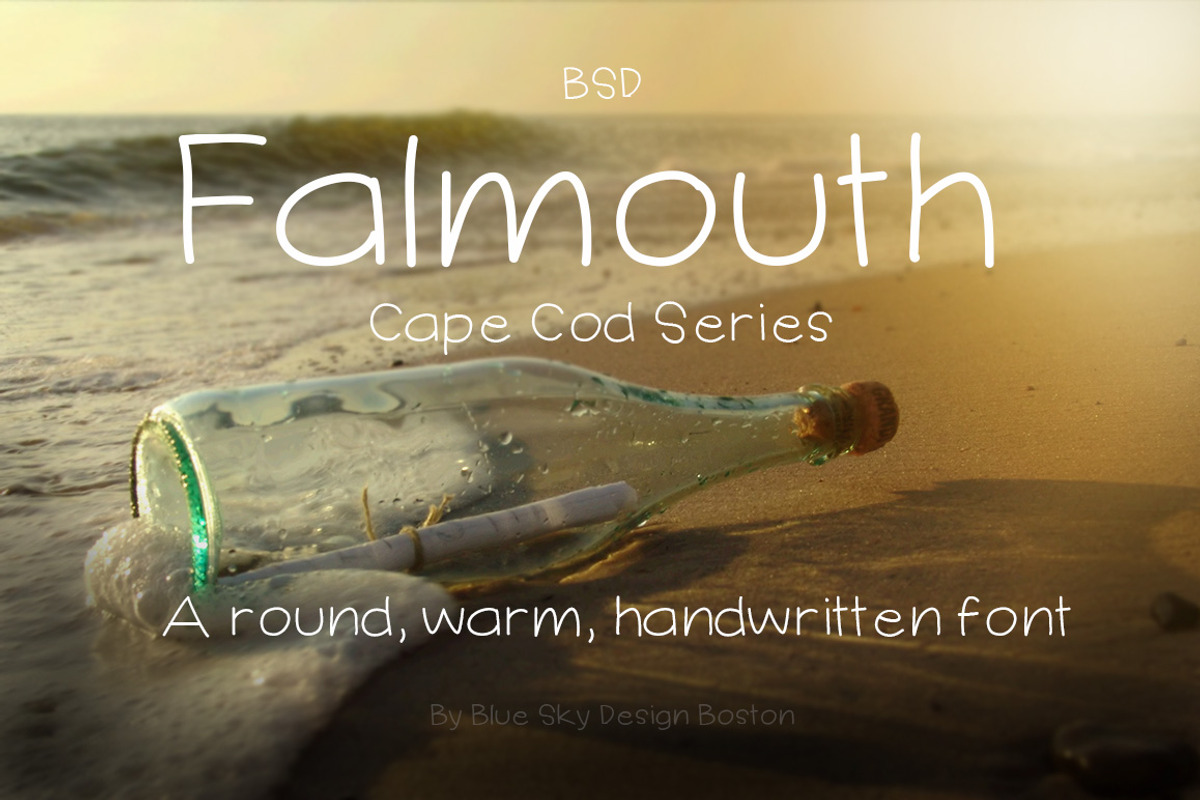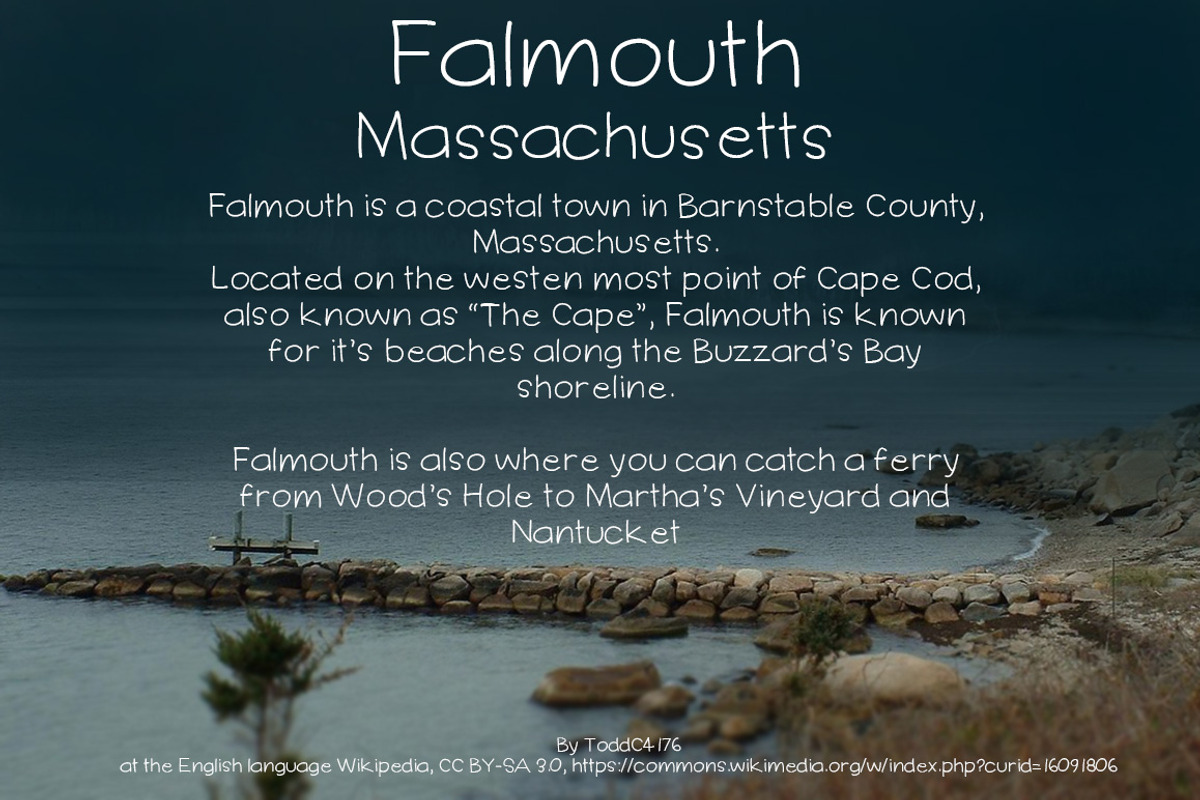
BSD Falmouth Font
Casual, round bodied handwritten font. Part of the Cape Cod series, each font embodies the spirit of this beautiful coastal Massachusetts area
BSD Falmouth Font by Blue Sky Design fits naturally into Branding, posters, packaging, typography.